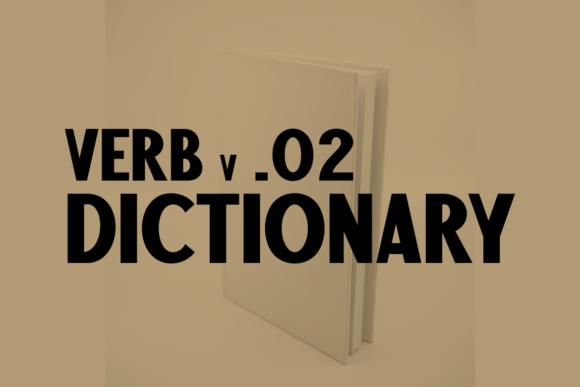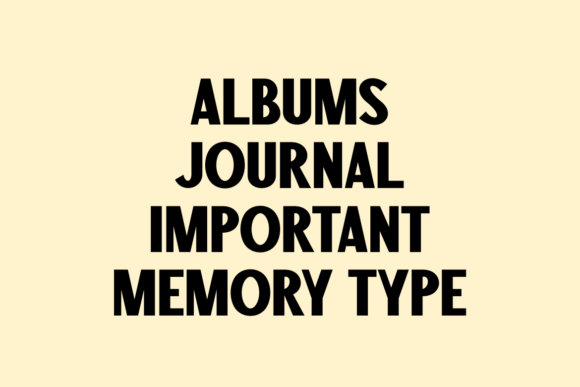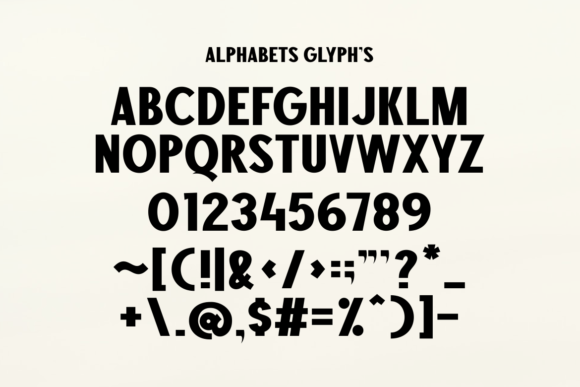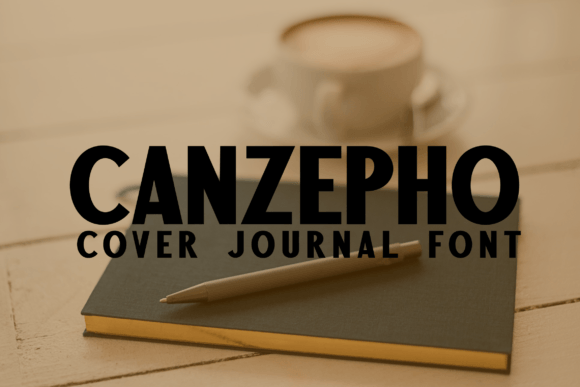
Introducing Canzepho Font: The Ultimate Choice for Thick Books, Instructions, Dictionaries, and More
Are you a designer, publisher, or crafter looking for a font that can add a touch of professionalism and elegance to your thick books, instructions, dictionaries, albums, and other materials? Look no further than the Canzepho Font, a special font edition designed specifically for such projects. With its bold and sturdy characteristics, Canzepho Font is the perfect choice for anyone seeking to create a lasting impression.
The Strengths of Canzepho Font
Canzepho Font boasts two primary strengths that make it an ideal choice for designers and crafters: its boldness and sturdiness. These characteristics ensure that your text remains clear and legible, even in large volumes of content or at smaller font sizes. The boldness of Canzepho Font allows it to grab attention, making it perfect for headings, titles, and emphasis, while its sturdiness provides a sense of reliability and professionalism.
Perfect for Thick Books and Large Documents
Thick books, such as dictionaries, textbooks, and comprehensive guides, require a font that can withstand the test of lengthy content. Canzepho Font rises to the challenge, providing a crisp and clear reading experience throughout even the most extensive documents. Its durability ensures that your content looks great on both digital and print platforms, making it a versatile choice for various mediums.
Ideal for Instructions and Manuals
When it comes to instructions, manuals, and guides, clarity is key. Canzepho Font’s bold and sturdy design ensures that your readers can easily follow along, reducing confusion and enhancing the overall user experience. Whether you’re creating instructional materials for software, hardware, or crafts, Canzepho Font is the perfect companion.
Enhance Your Albums and Creative Projects
Canzepho Font isn’t just limited to text-heavy projects; it’s also an excellent addition to creative endeavors like photo albums, scrapbooking, and more. Add a professional touch to your designs with Canzepho Font’s bold and sturdy aesthetic, elevating your craft to new heights.
Why Designers and Crafters Love Canzepho Font
Designers and crafters appreciate fonts that offer both style and functionality. Canzepho Font checks all the boxes:
- Readability: Its clear and bold design ensures that text is easy to read, even at smaller sizes.
- Versatility: Suitable for a wide range of projects, from thick books and instructions to creative endeavors.
- Elegance: Adds a touch of sophistication and professionalism to any project.
- Durability: Maintains its appearance even in lengthy documents or under various printing conditions.
In conclusion, Canzepho Font is a powerful tool for designers, publishers, and crafters looking to add a professional edge to their thick books, instructions, dictionaries, albums, and more. Its bold and sturdy characteristics make it the perfect choice for projects requiring clarity, elegance, and durability. With Canzepho Font, you can elevate your designs, enhance readability, and create a lasting impression on your audience.
Whether you’re working on a large-scale publishing project or a small creative endeavor, Canzepho Font is sure to become an indispensable part of your design toolkit. Experience the difference it can make in your work today.